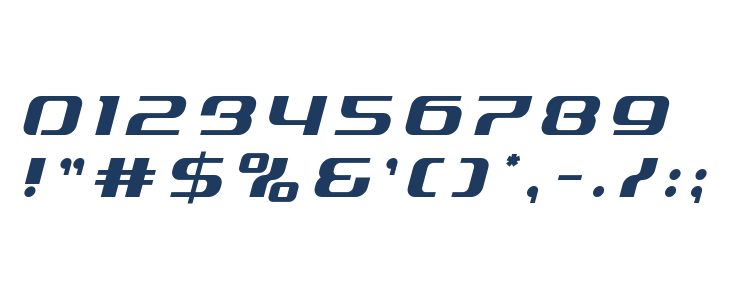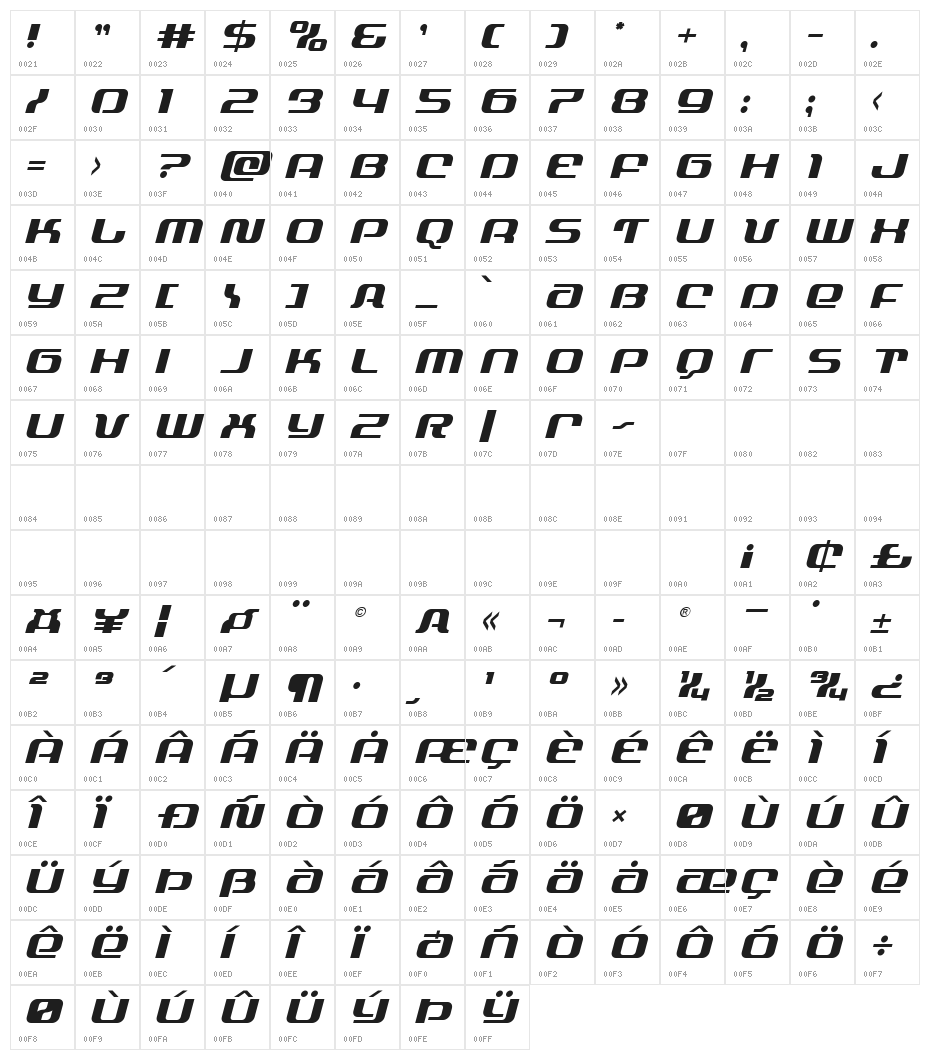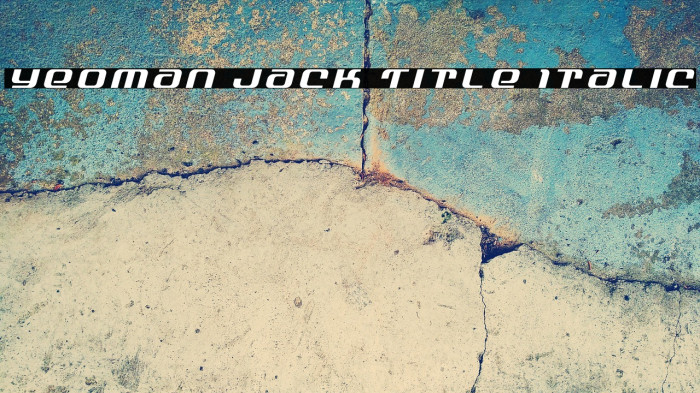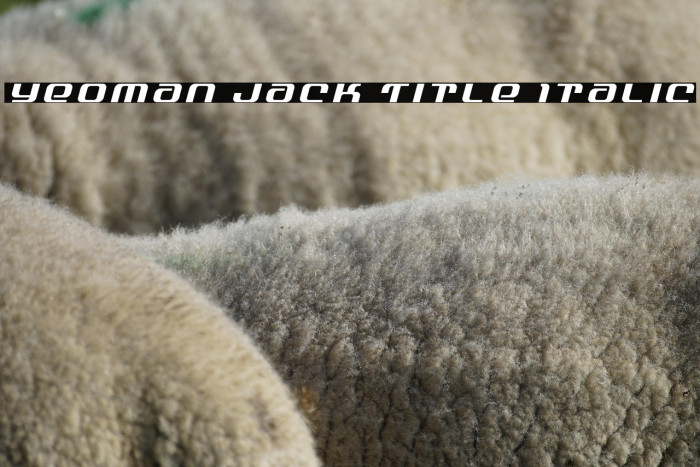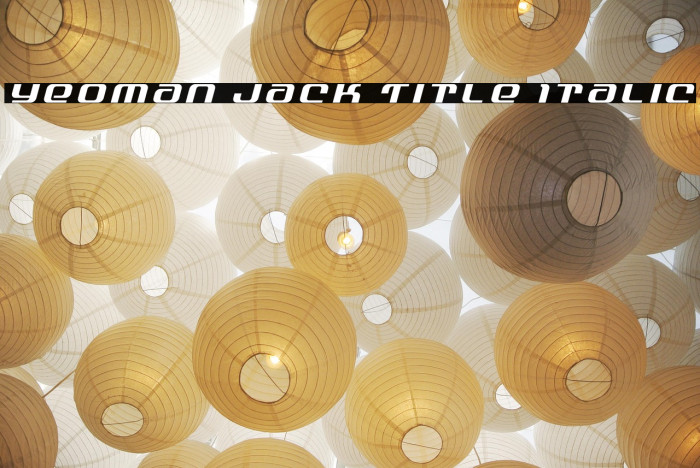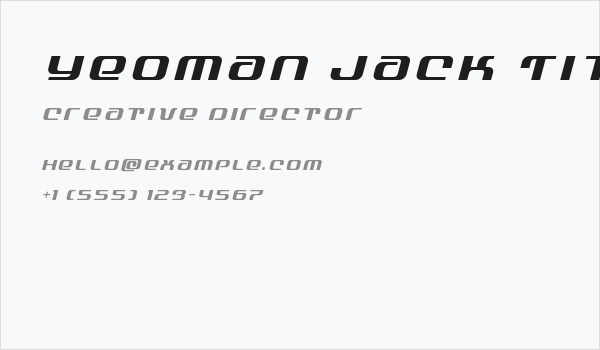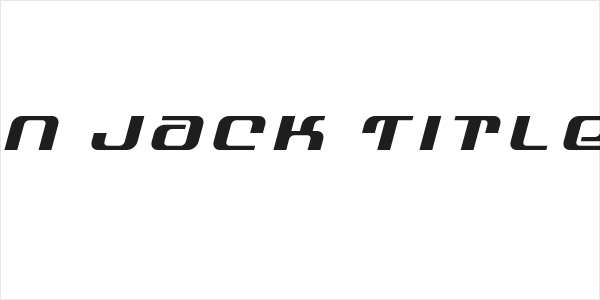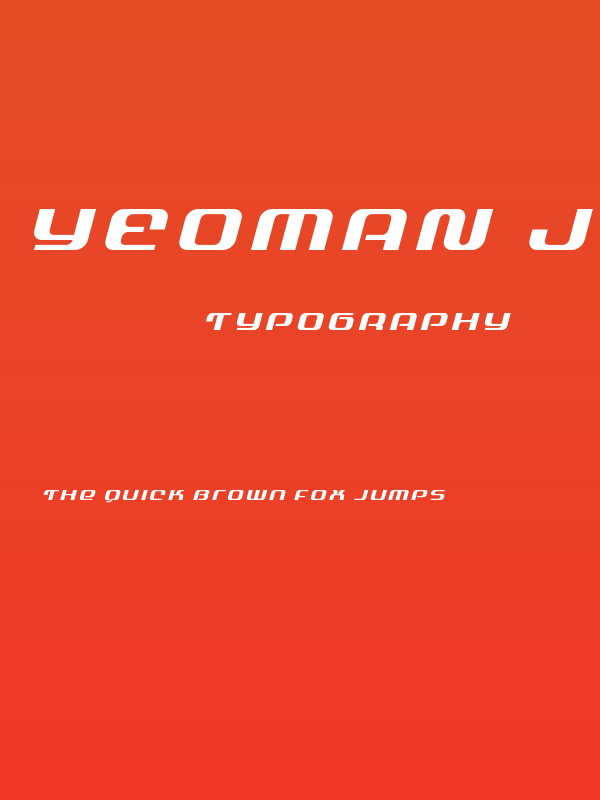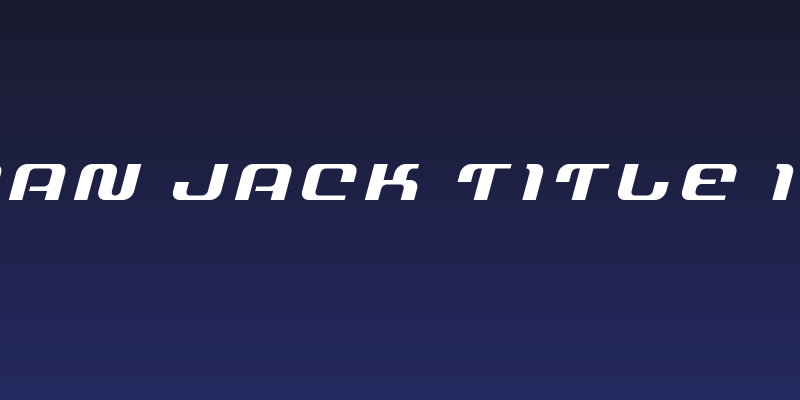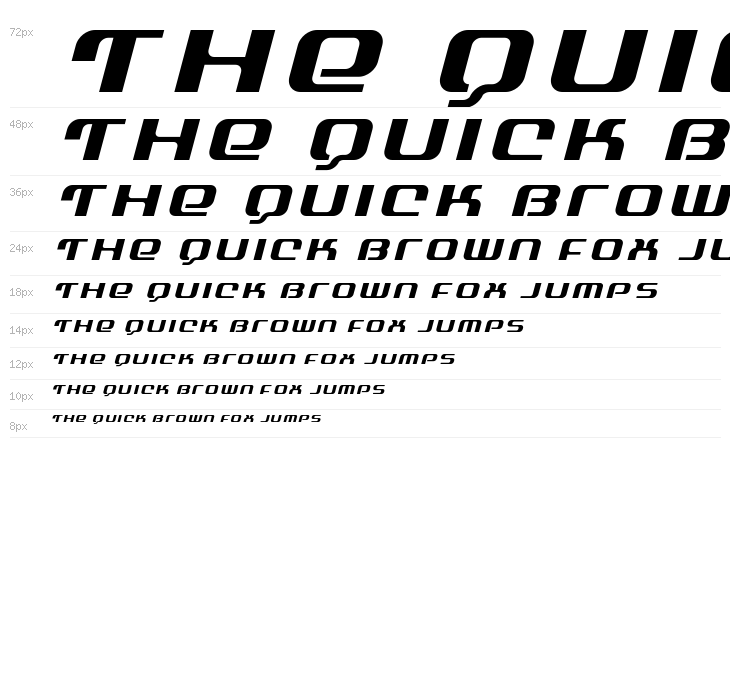
Yeoman Jack Title Italic Font
Yeoman Jack Title Italic Description
This font features a modern and sleek design with a distinct italic slant, giving it a dynamic and forward-moving appearance. The characters are bold and slightly condensed, with a unique geometric style that adds a futuristic touch. The uppercase and lowercase letters maintain a consistent style, with smooth curves and sharp angles. The numbers and special characters are designed to match the overall aesthetic, ensuring a cohesive look across all text. The font's strong presence makes it ideal for attention-grabbing headlines and titles.
| Overall Style | Modern, Futuristic |
| Use Case | Headlines, Logos, Advertising |
| Proposed Projects | Ideal for use in technology branding, futuristic designs, sports team logos, and dynamic advertising campaigns. |